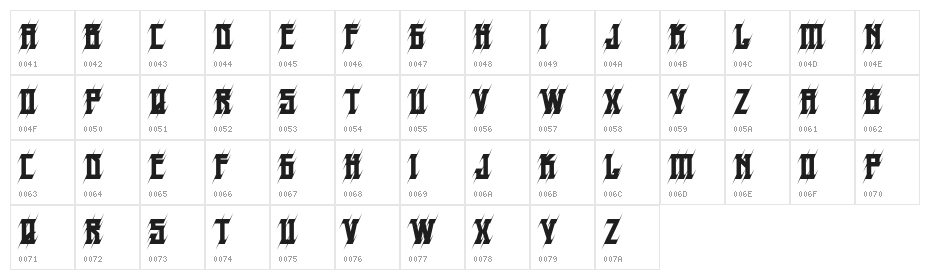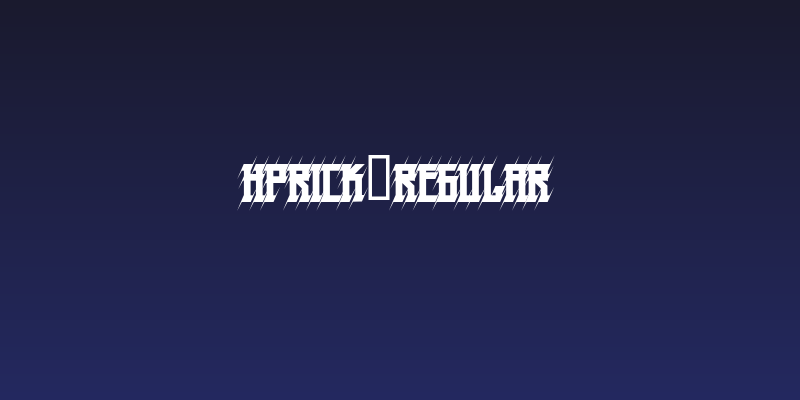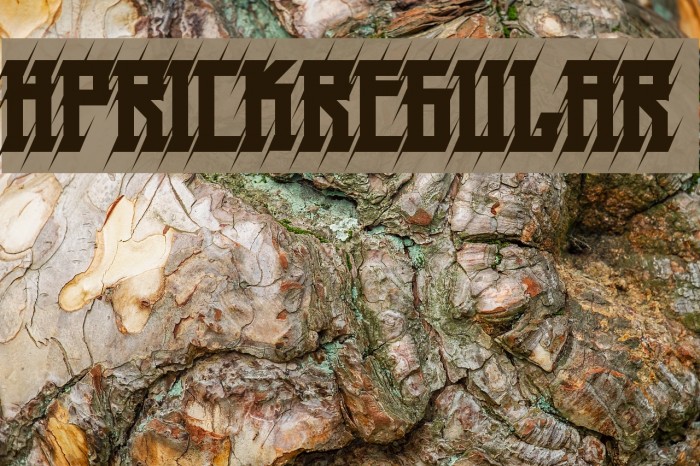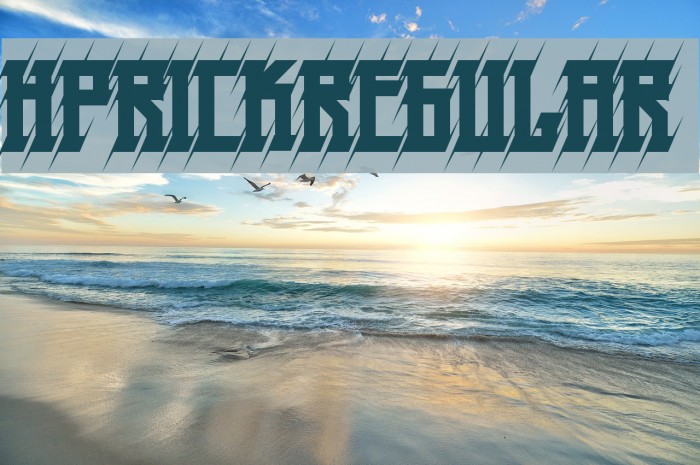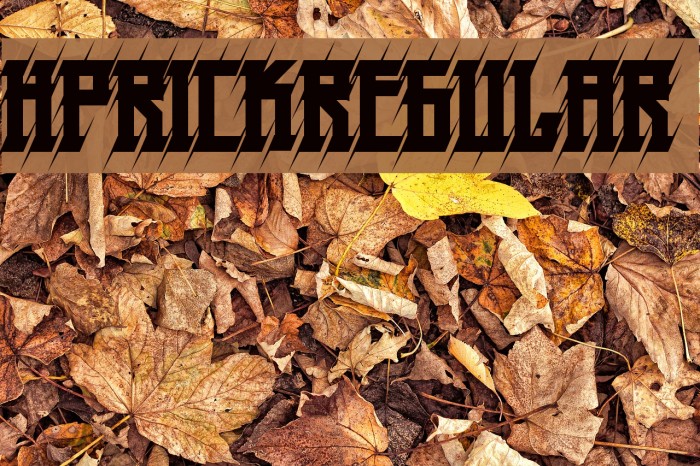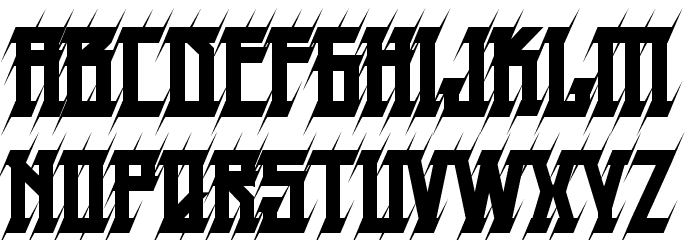
HPrick-Regular Font
HPrick-Regular Description
This font features a bold, angular design with a distinct blackletter influence, characterized by sharp edges and a strong presence. The uppercase letters are particularly striking, with a gothic style that evokes a sense of tradition and authority. The lowercase letters maintain this theme, offering a cohesive look across different text sizes. The numbers are equally bold, ensuring readability while maintaining the overall aesthetic. This font's unique style makes it ideal for projects that require a dramatic and impactful visual statement.
| Overall Style | Gothic, Decorative |
| Proposed Projects | Suitable for branding, posters, album covers, and any project needing a strong, gothic aesthetic. |